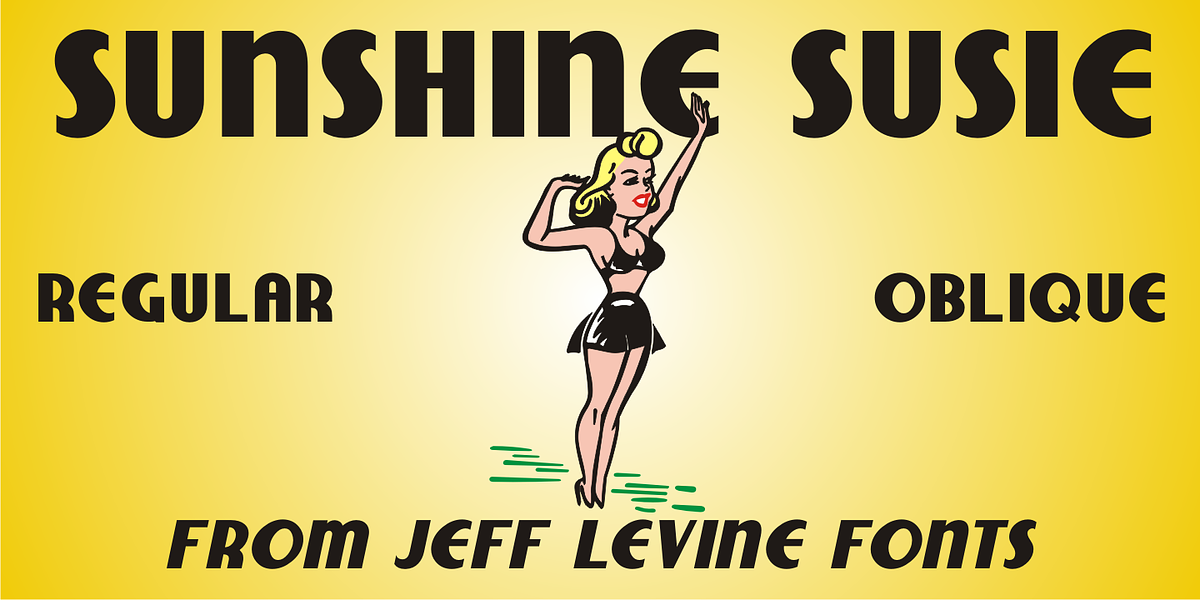
Sunshine Susie JNL
Sheet music for the song “Today I Feel So Happy” from the 1932 motion picture “Sunshine Susie” provided both the visual model and the name for Sunshine Susie JNL, available in both regular and oblique versions.
The lettering is a bold Art Deco thick-and-thin design, and comes not from the song’s title, but the hand lettered name of the movie as it appeared on the cover the song folio.